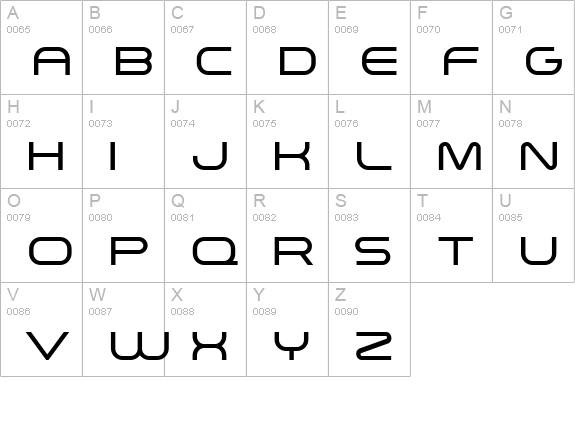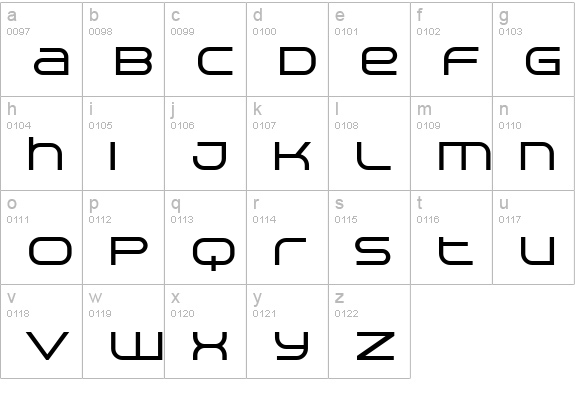
Arkitech Medium Font Details
Arkitech Medium is a balanced, medium-weight variant in the Arkitech typeface family \xE2\x80\x94 well suited to sub-headlines, navigation, and balanced editorial work.
Arkitech Medium is a modern and versatile font that combines sleek geometric shapes with a touch of elegance. This unique typeface is perfect for a wide range of design projects, from logos and headlines to posters and branding materials. With its clean lines and balanced proportions, Arkitech Medium exudes a sense of professionalism and sophistication. It is carefully crafted to ensure legibility while adding a contemporary edge to any design. Its medium weight strikes the perfect balance between boldness and subtlety, making it suitable for both display and body text. One of the most exciting aspects of Arkitech Medium is that it is free to download at FontsMarket.com. This means that designers, artists, and creatives of all kinds can enjoy the benefits of this exceptional font without any cost. Its availability on FontsMarket.com ensures easy accessibility and convenience for anyone in need of a high-quality typeface for their projects. Whether you are working on a corporate branding project, a magazine layout, or a website design, Arkitech Medium will provide you with the versatility and flexibility you need. Its contemporary aesthetic and extensive character set make it suitable for a wide range of design applications. So why wait? Download Arkitech Medium for free at FontsMarket.com and elevate your designs with this exceptional font. With its modern appeal and professional quality, Arkitech Medium is sure to make a lasting impression and enhance the visual impact of your projects.